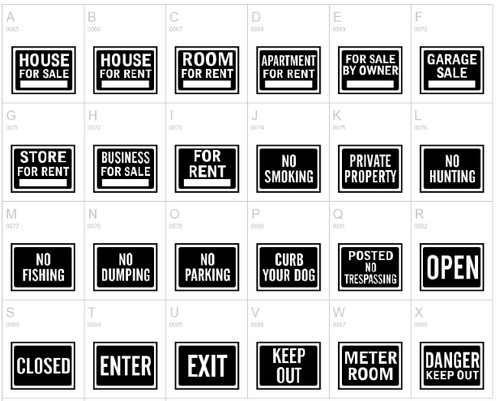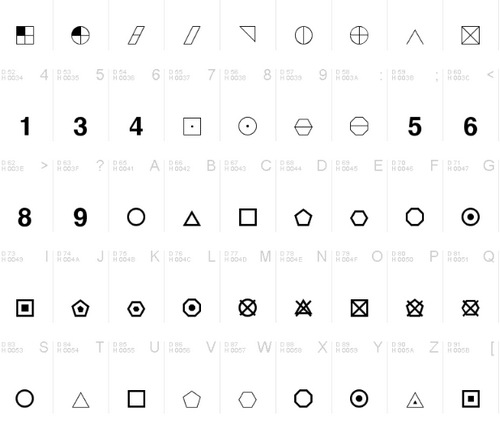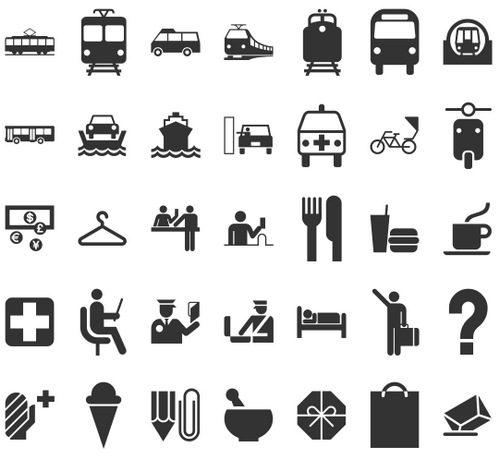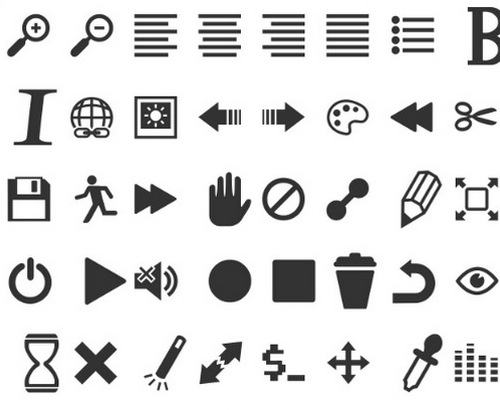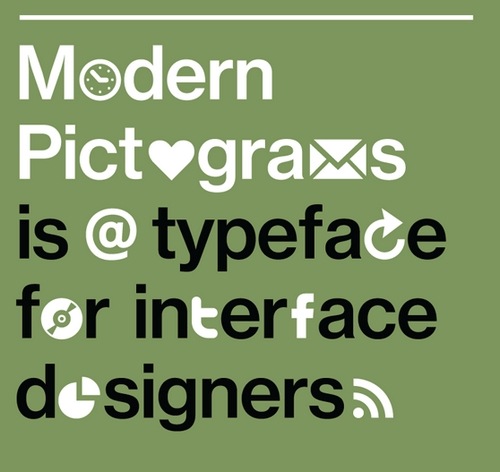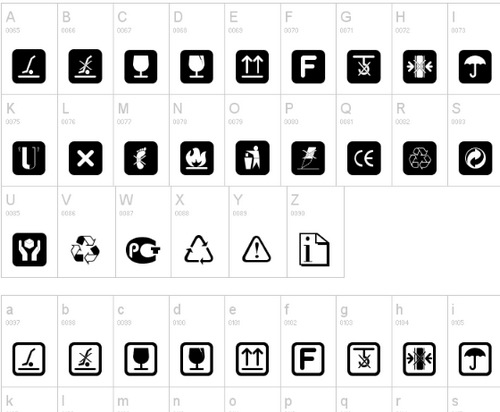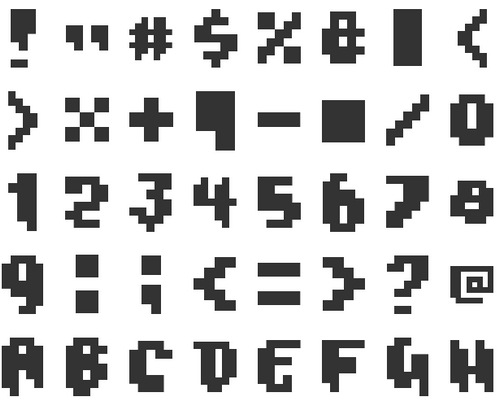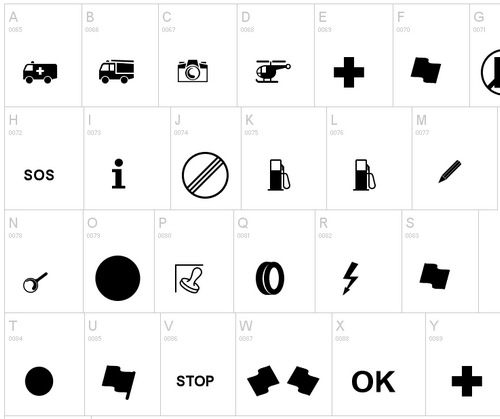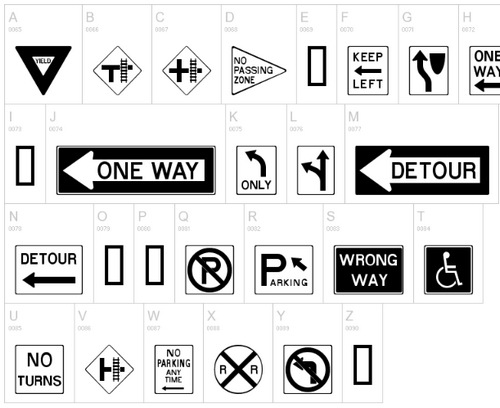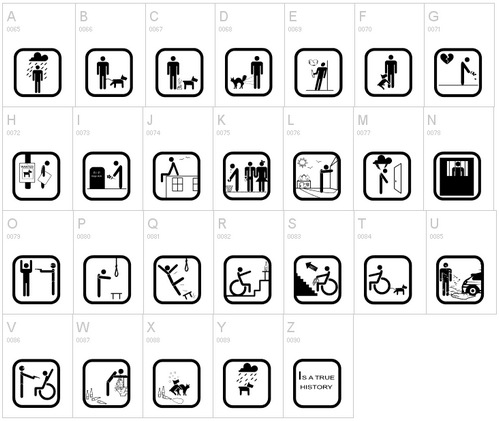
pictogram-dingbat-fonts
With pictogram dingbat fonts, you can add illustrative signs and symbols to your designs. Pictograms can also be drawn from scratch or imported as vectors in graphic software like Illustrator, but there are many situations where the pictograms you need can be quickly inserted as font and it is a convenient way to store the design elements compared to searching through a vector library. As a professional designer you can never have to many tools on stock. We have prier written about many different icons font sets for your toolbox, but another great thing to add to your collection is pictogram dingbat fonts.
A pictogram is a definition for highly simplified illustrations used to give humans quick instructions. Well-known pictogram examples are the male and female pictograms used on toilet signs and doors. When pictograms are delivered as fonts, they are usually referred to as dingbat fonts. The term dingbat describe fonts that have symbols and shapes in the positions designated for alphabetical or numeric characters. This means that e.g. “A” could be replaced by an “airplane” pictogram and that a pictogram dingbat font is simply used by typing the right characters on the keyboard. In this article, I have collected most of the great looking pictogram dingbat fonts available as free downloads.
All Purpose Signs JL – MORE INFO
12 Halloween Signs LT font – MORE INFO
Roadgeek 2005 Icons font – MORE INFO
Warning Tables – MORE INFO
Raise Your Flag – MORE INFO
The B.O.M.B. (Best Of Magurno Brushes) – MORE INFO
Chinese Zodiac font – MORE INFO